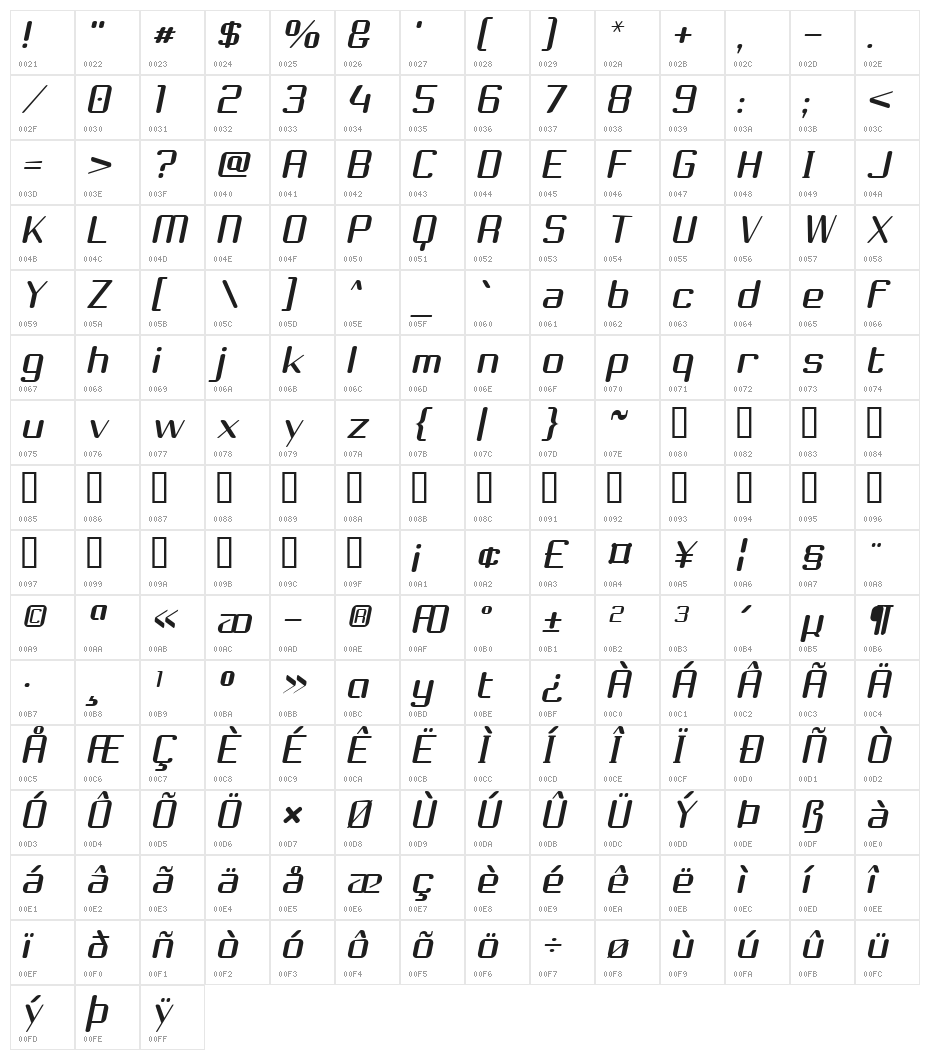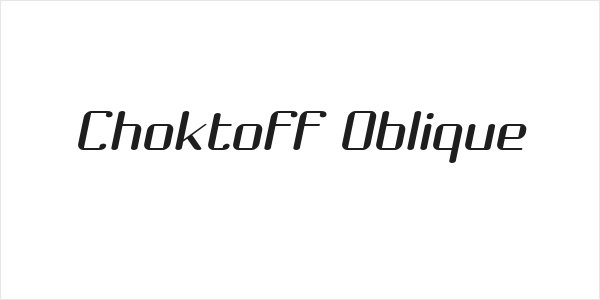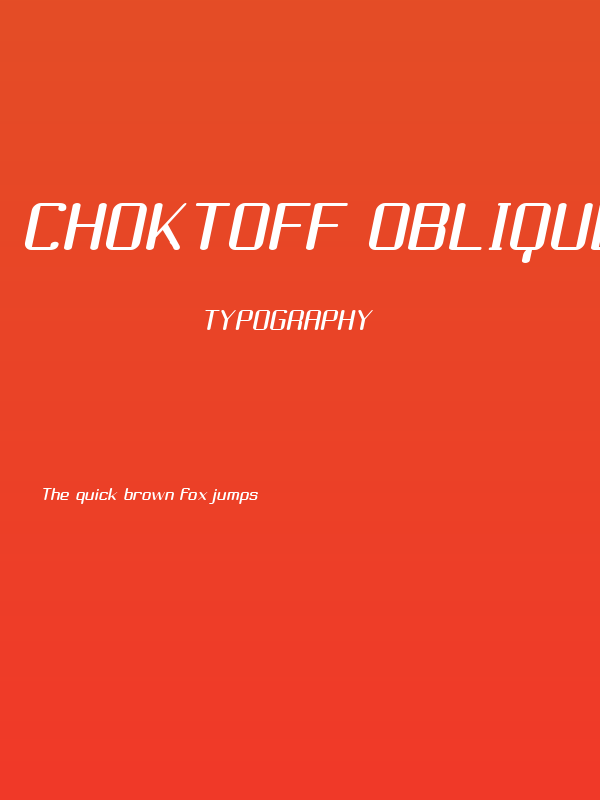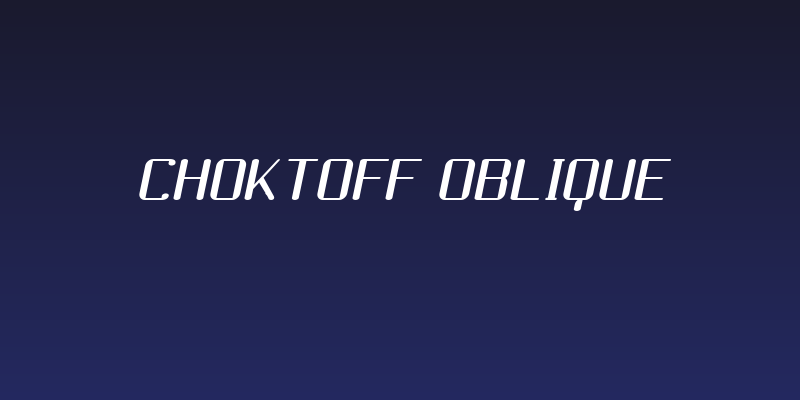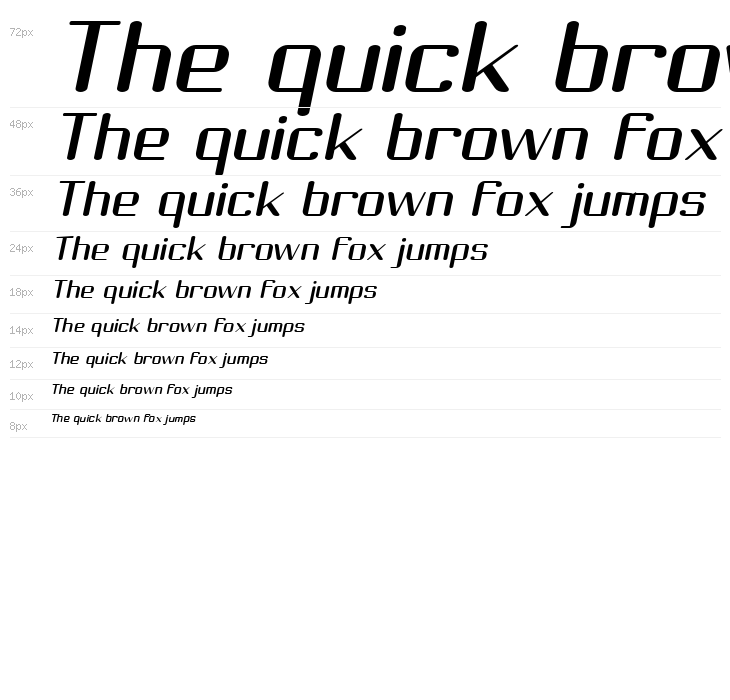
Choktoff Oblique Font
Choktoff Oblique Description
This font features a sleek, modern design with an oblique slant, giving it a dynamic and forward-moving appearance. The characters are slightly condensed, with a uniform stroke width that maintains consistency across both uppercase and lowercase letters. The numerals and special characters follow the same stylistic cues, ensuring a cohesive look. The font's clean lines and minimalistic style make it versatile for various applications, while the oblique angle adds a touch of sophistication and movement.
| Proposed Projects | Ideal for branding, advertising, and editorial design where a modern and dynamic look is desired. |